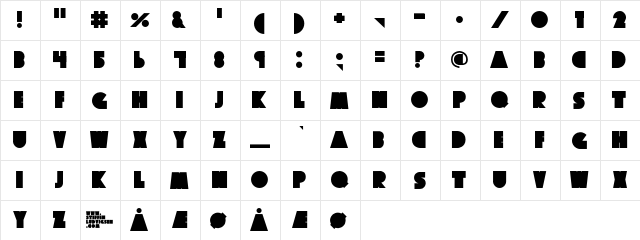
Big Fat Ugly Cow Regular
Design Context for Big Fat Ugly Cow Typeface
Big Fat Ugly Cow is a composed and adaptable typeface that performs quietly and consistently across a wide range of design contexts.
Pro Tip: Pair Big Fat Ugly Cow with a font of contrasting weight or personality to build a more expressive typographic hierarchy.